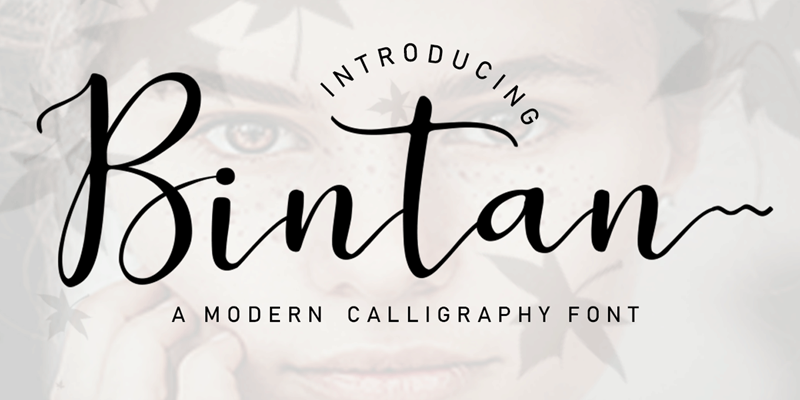
Preview and download Bintan Font. Created by Rezastudio in Script Calligraphy styles with Free for personal use license.
Bintan is a dazzling script font. This font is neatly crafted and highly detailed. Whatever the topic, this font will be a wonderful asset to your font library, as it has the potential to enhance any creation. Bintan is PUA encoded which means you can access all of the glyphs and swashes with ease! NOTE: By installing or using this font, you are agree to the Product Usage Agreement: - This font is already FULL VERSION and ONLY for PERSONAL USE. NO COMMERCIAL USE ALLOWED! - Here is the link to purchase commercial license: https://www.creativefabrica.com/product/bintan/ref/397078/ - Any donation are very appreciated. Please visit our store for more amazing fonts : https://www.creativefabrica.com/designer/rezastudio Thank you. ------------------- INDONESIA: Dengan meng-install font ini, anda dianggap mengerti dan menyetujui semua syarat dan ketentuan penggunaan font dibawah ini: - Font demo ini hanya dapat digunakan untuk keperluan "Personal Use"/kebutuhan pribadi, atau untuk keperluan yang sifatnya tidak "komersil", alias tidak menghasilkan profit atau keuntungan dari hasil memanfaatkan/menggunakan font kami. Baik itu untuk individu, Agensi Desain Grafis, Percetakan, Distro atau Perusahaan/Korporasi. - Silakan gunakan lisensi komersial dengan membeli melalui link ini : More... |